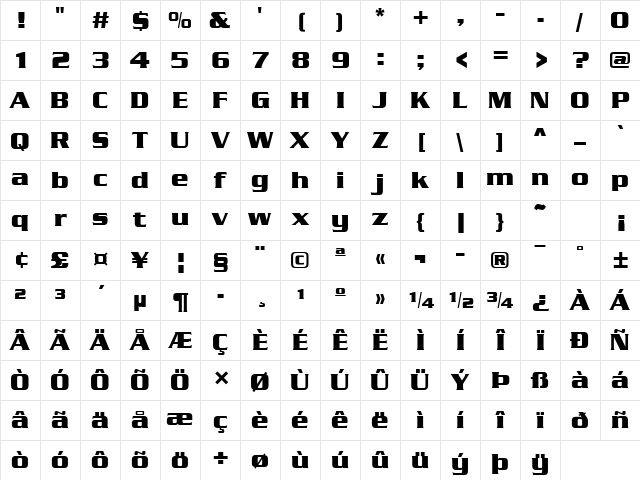
SerpentineDBol Regular
SerpentineDBol Family
Complete SerpentineDBol Regular glyph index. Displaying only characters natively supported by SerpentineDBol Regular font.
Design Context for SerpentineDBol
SerpentineDBol is a composed and adaptable typeface that performs quietly and consistently across a wide range of design contexts.